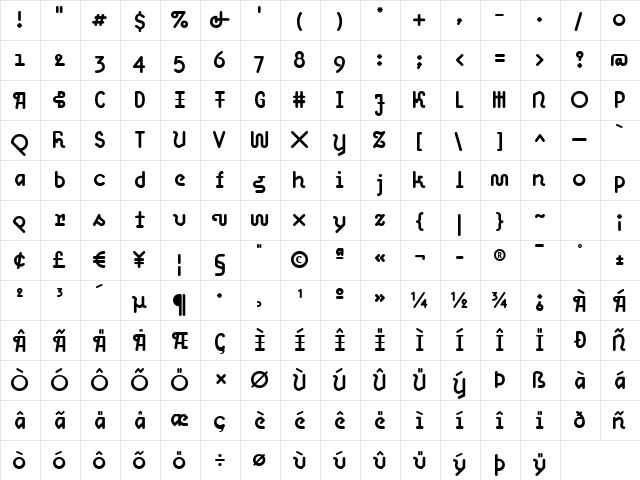
OHmygod Bold
Design Context for OHmygod Typeface
OHmygod is a composed and adaptable typeface that performs quietly and consistently across a wide range of design contexts. The heavy weight commands attention and anchors typographic hierarchies.